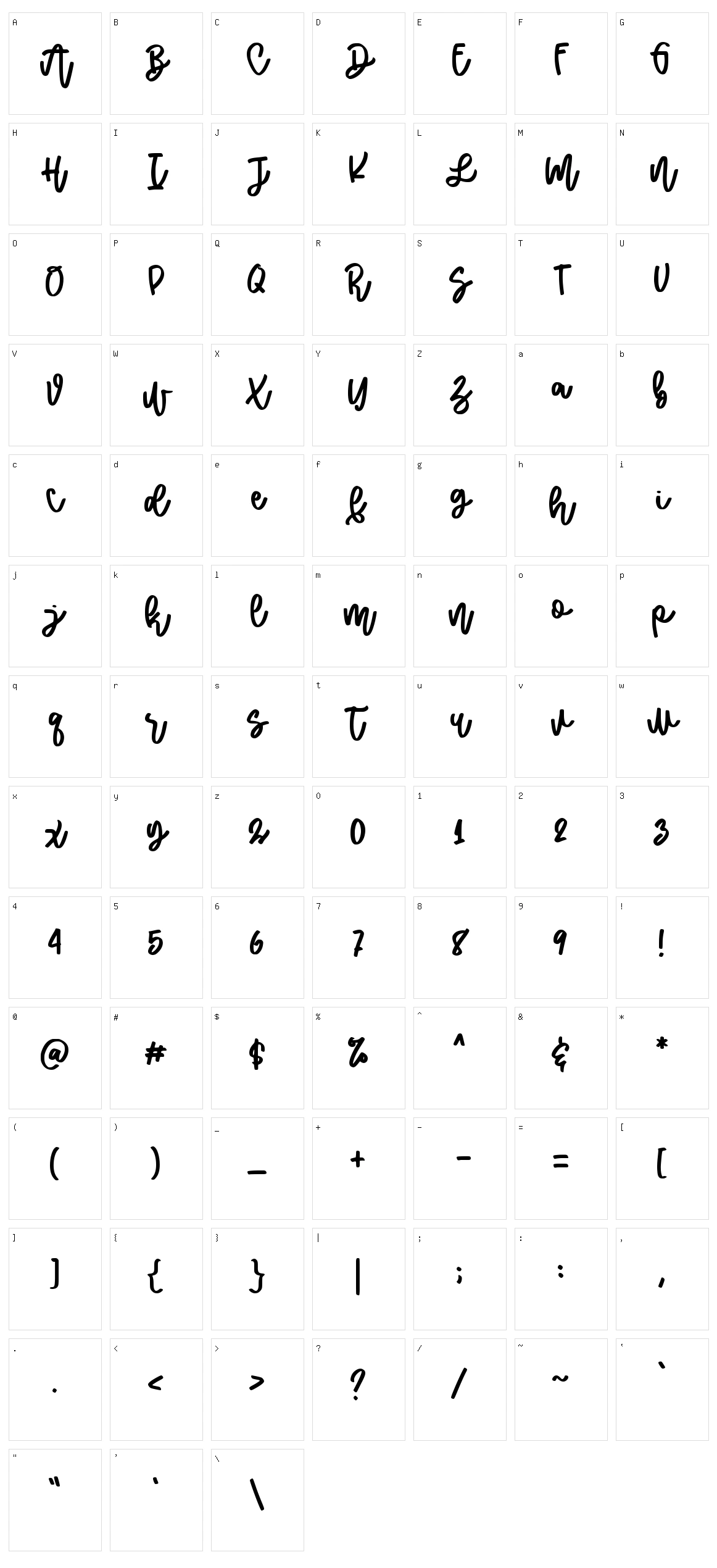
MALIHAH SCRIPT
- lettering font -
Malihah is a joyful, bouncy and incredibly cute handwritten font.
Fall in love with its incredibly versatile style and use it to create gorgeous wedding invitations,
beautiful stationary art, eye-catching social media posts, and much more!